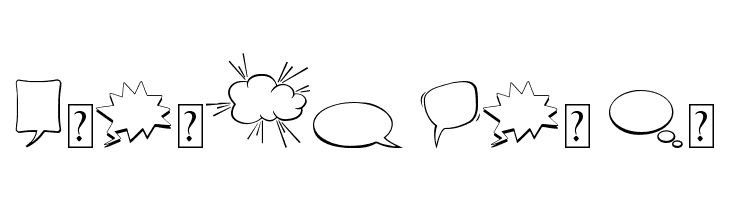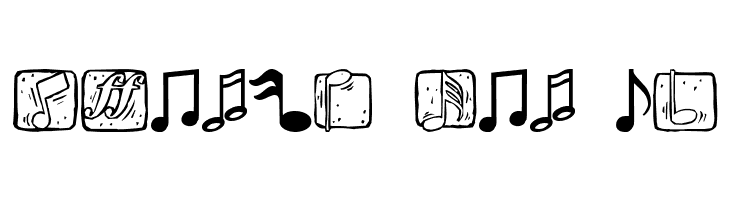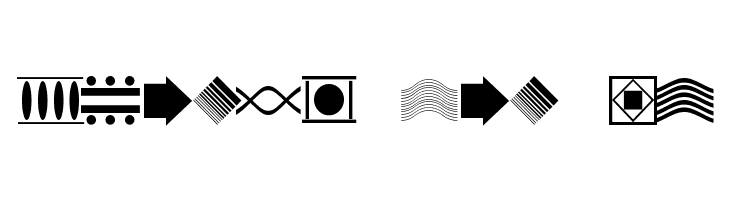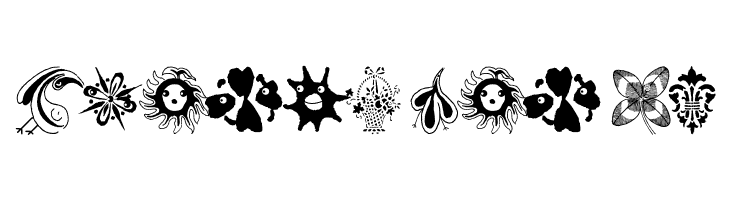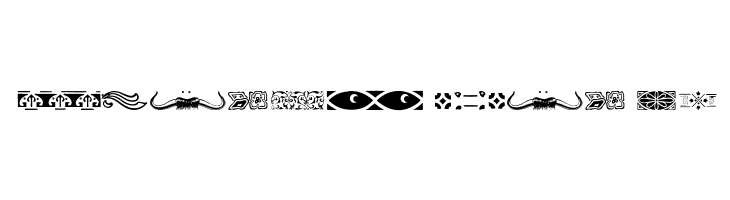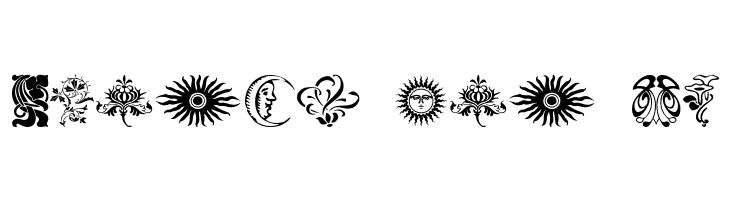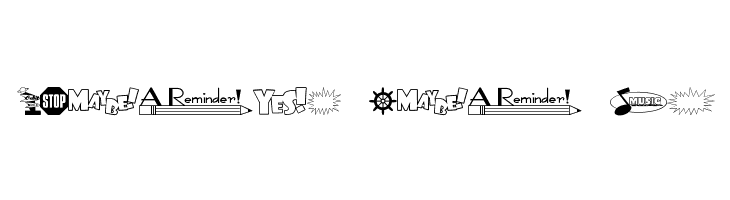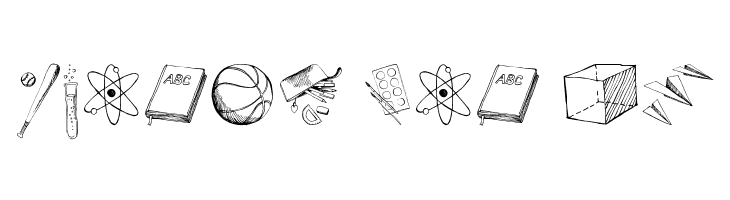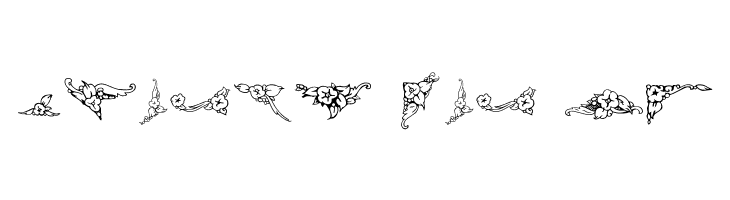
Helvetica-Narrow Font
A clean, modern sans-serif font with narrow, evenly spaced letterforms.
Crystal Universe Regular Font
A bold, playful font with star-shaped cutouts in each character.
BN Elements Font
A bold, modern font with geometric, angular characters and a dynamic slant.
Spy Agency Bold Italic Font
Crystal Universe Regular Font
A bold, playful font with star motifs in each character.
Ducatus Demo Font
A versatile font with both a sleek, narrow sans-serif and a textured, hand-drawn style.
Notepad Regular Font
A casual, handwritten font with fluid strokes and a dynamic slant.
Reno Casino Font
A bold, playful font with a hand-drawn, dynamic style.
Organic Elements Font
A modern serif font with organic elements and playful swashes.
DBE-Rigil Kentaurus Font
A playful handwritten font with dynamic and irregular strokes.
Artfonts Sampler Font
Ornamental dingbat font with artistic illustrations and decorative motifs.
final fantasy elements Font
A decorative, illustrative font with Final Fantasy-themed character and logo art.
Periodic Table of Elements Font
Bold, geometric sans-serif font with rounded corners and modern style.
RICHMOND Font
A bold, geometric font with sharp angles and a modern, edgy style.
Back to School Elements DEMO Font
Hand-drawn school-themed dingbat illustrations.
Funiko Font
A playful, handwritten font with smooth, rounded edges and a casual style.
Crystal Universe Oblique Font
A bold, playful font with star motifs and rounded characters.
Decorative Elements JL Font
A playful decorative dingbat set with varied graphic elements and comic-style word art.
DBE-Lithium Font